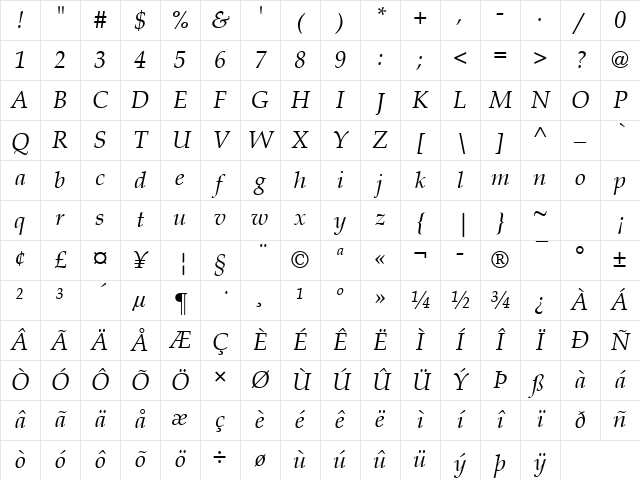
Complete Book Antiqua Italic glyph index. Displaying only characters natively supported by Book Antiqua Italic font.
Book Antiqua is a composed and adaptable typeface that performs quietly and consistently across a wide range of design contexts. The slanted form adds forward momentum and visual energy.
Pro Tip: Use Book Antiqua for emphasis, pull quotes, and subheadings where its slanted energy can add rhythm to the layout.